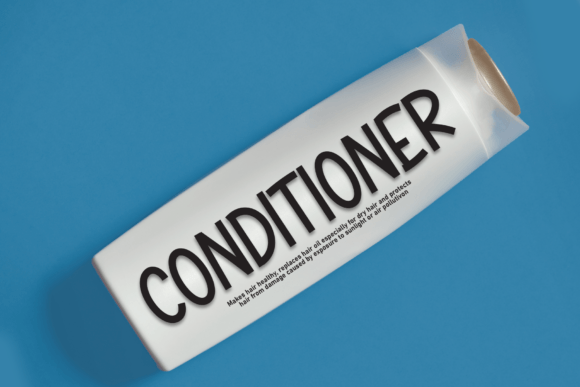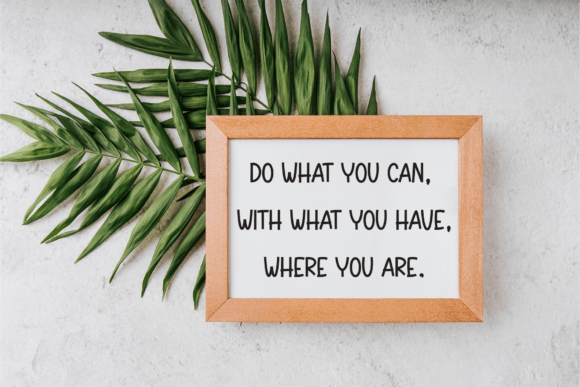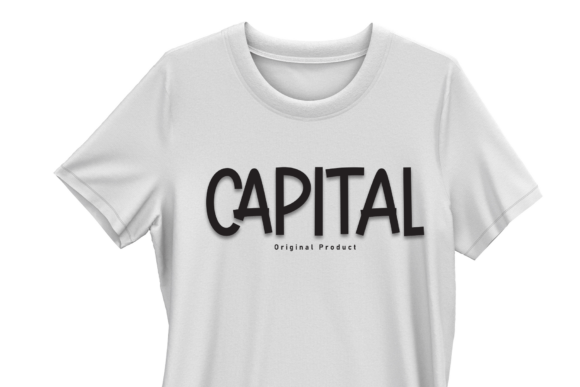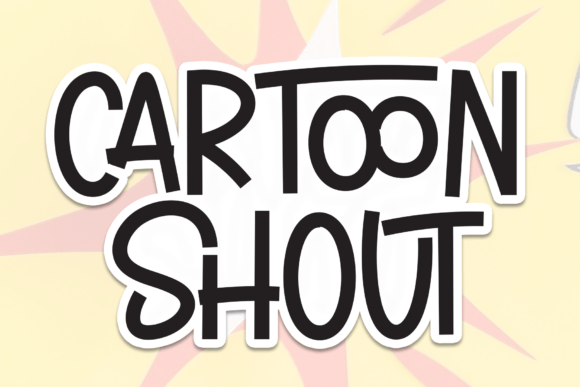
Introduction to Cartoon Shout Font
Cartoon Shout is a playful and bold display font, perfect for adding a fun, energetic vibe to your designs.
Its chunky, bubbly letters make it ideal for comic books, posters, or anything that needs a cheerful and lively touch .
Key Features of Cartoon Shout Font
Why Choose Cartoon Shout Font?
Cartoon Shout Font offers exceptional quality and versatility, making it a valuable addition to your design toolkit. Whether you’re creating for personal projects or commercial use, Cartoon Shout Font delivers professional results.